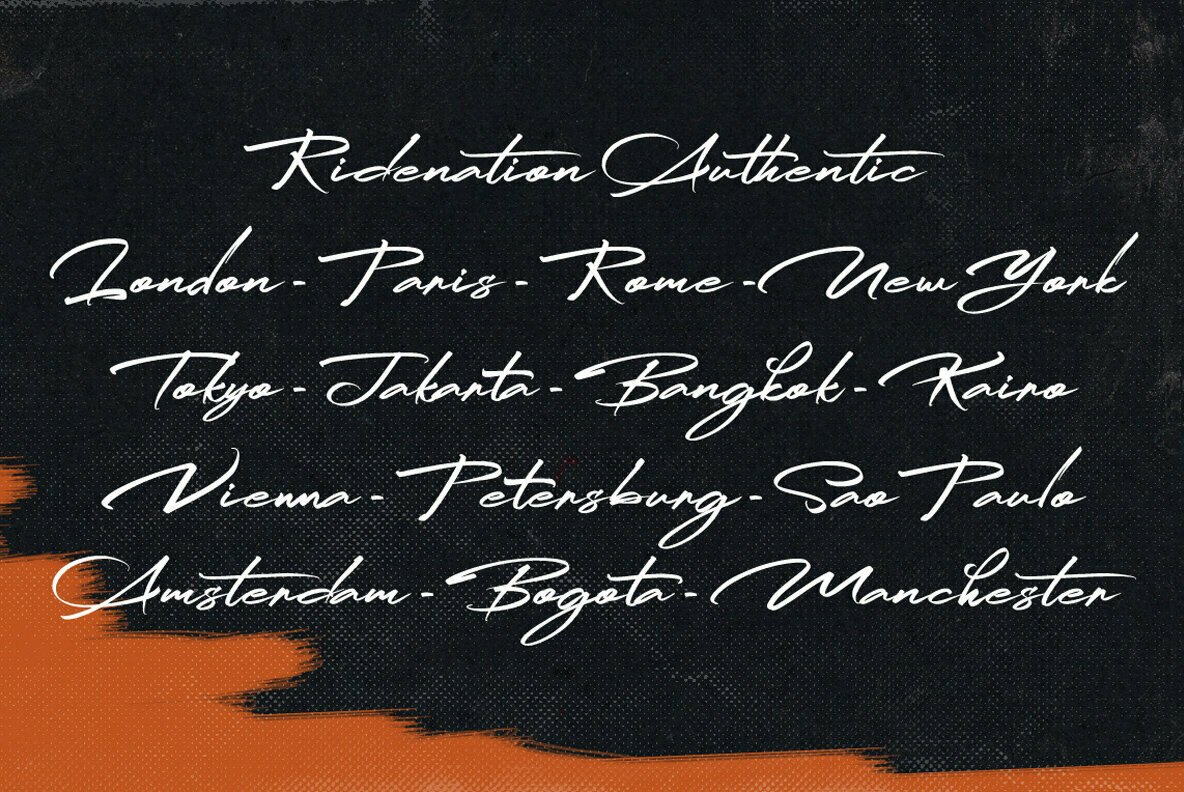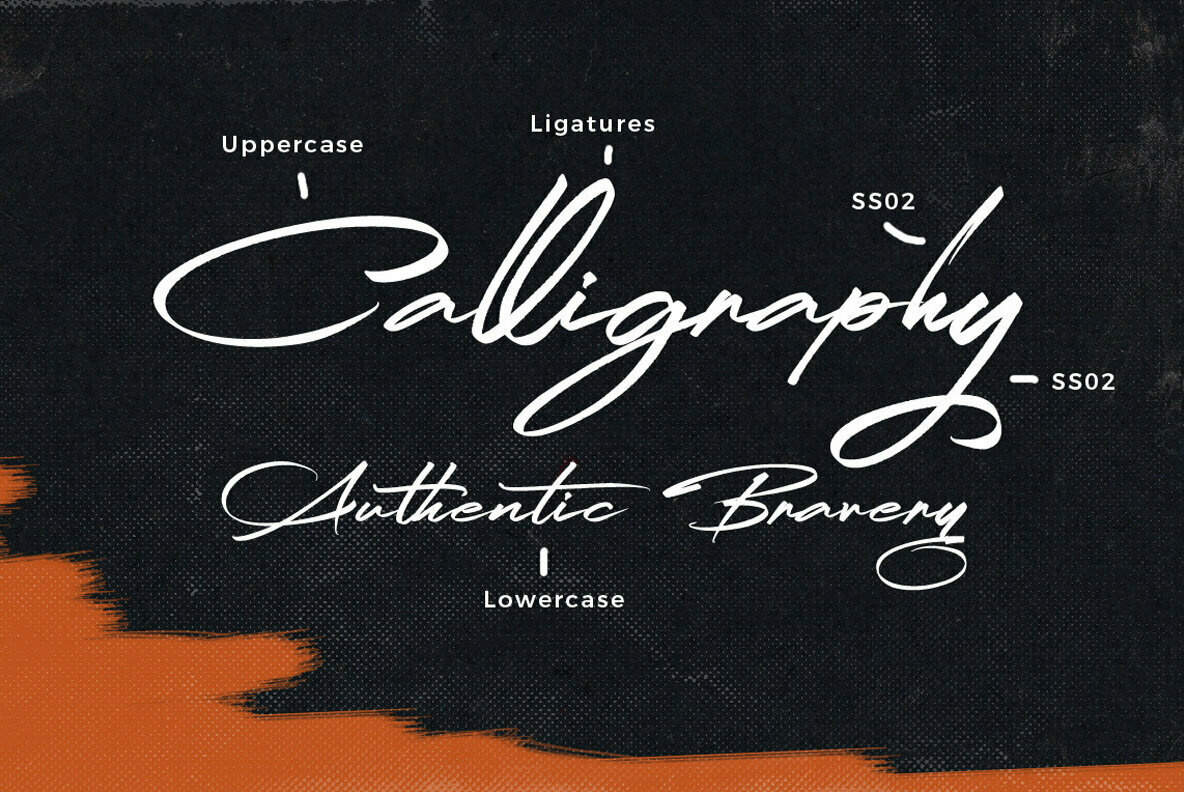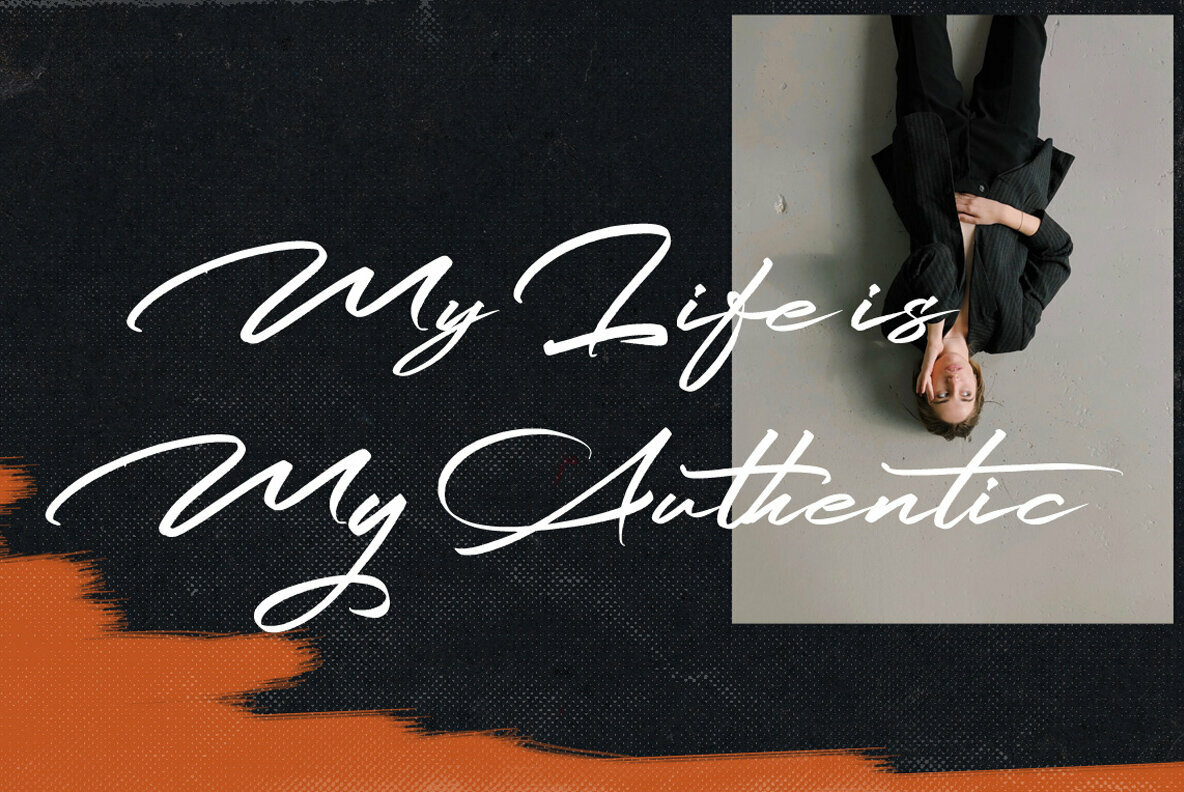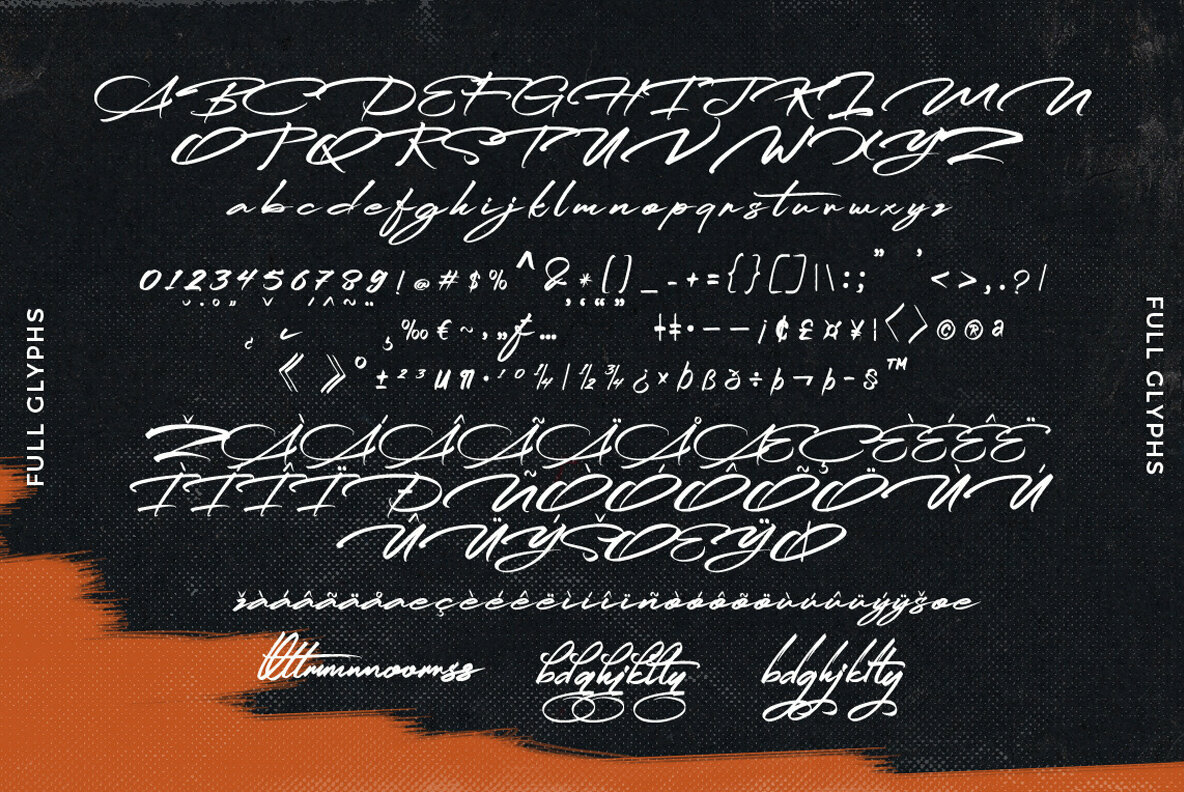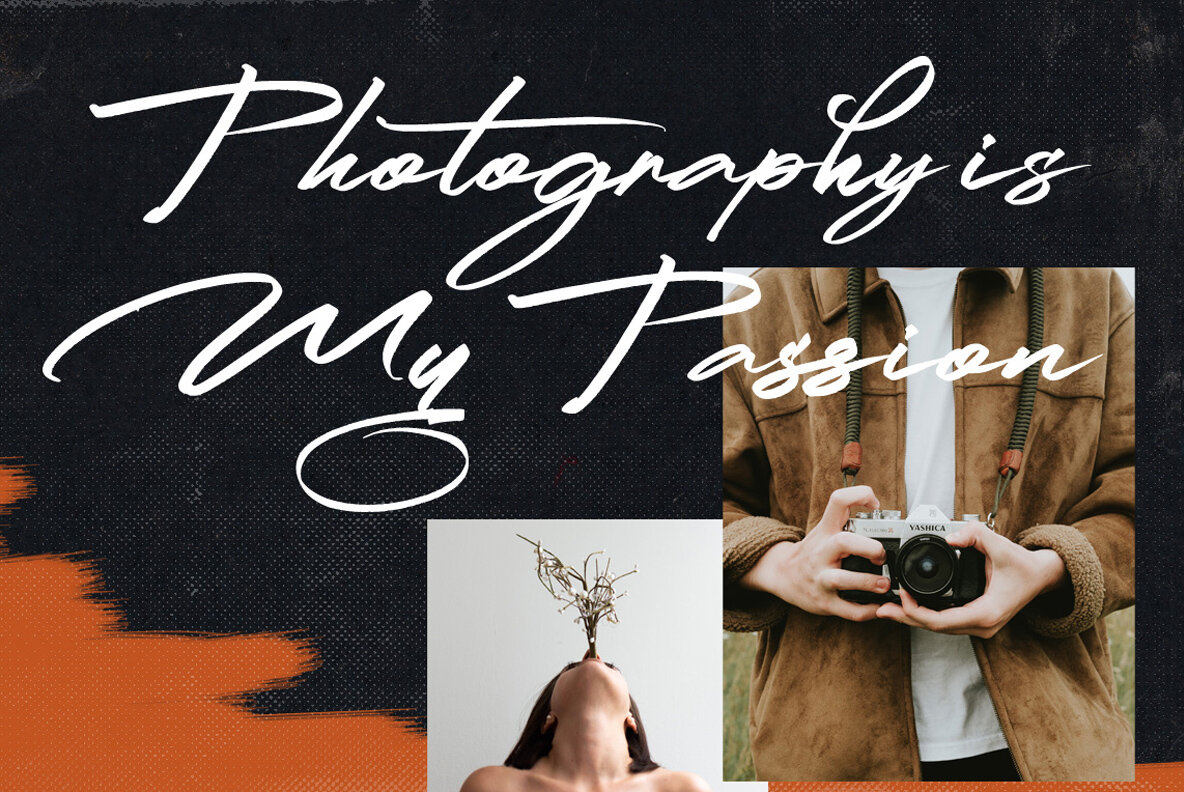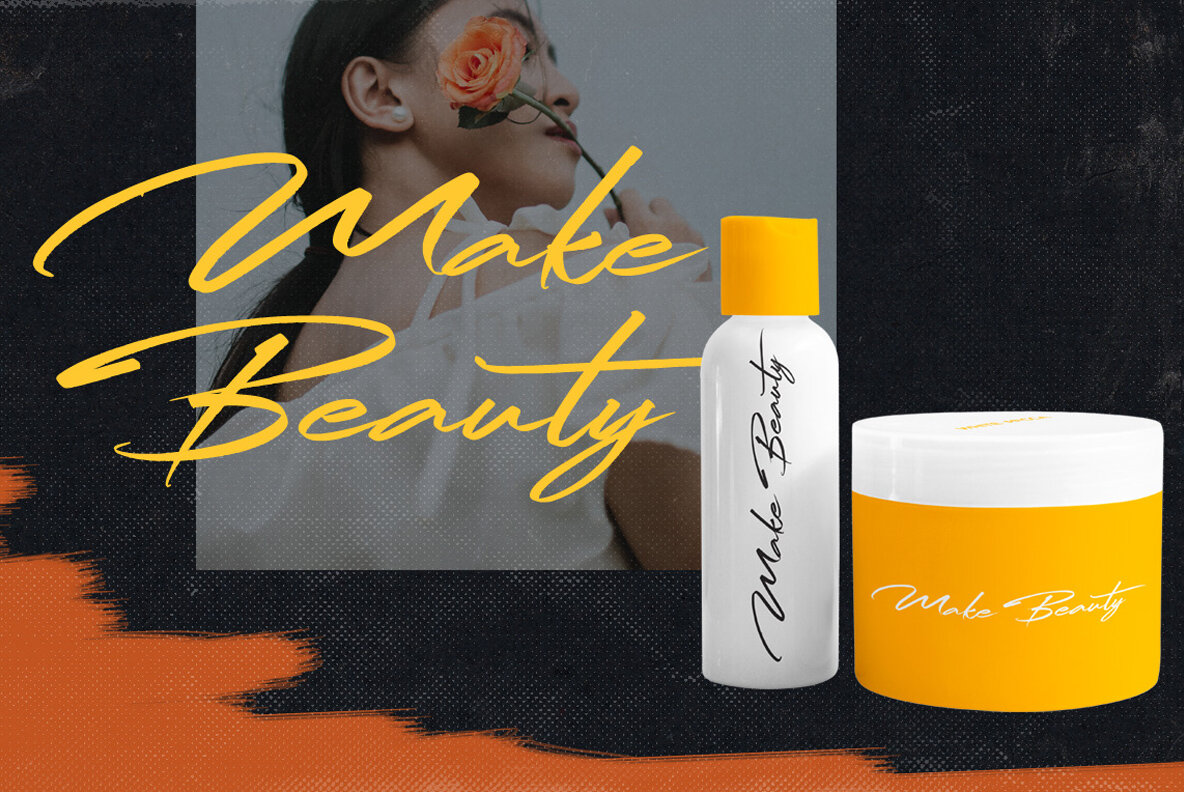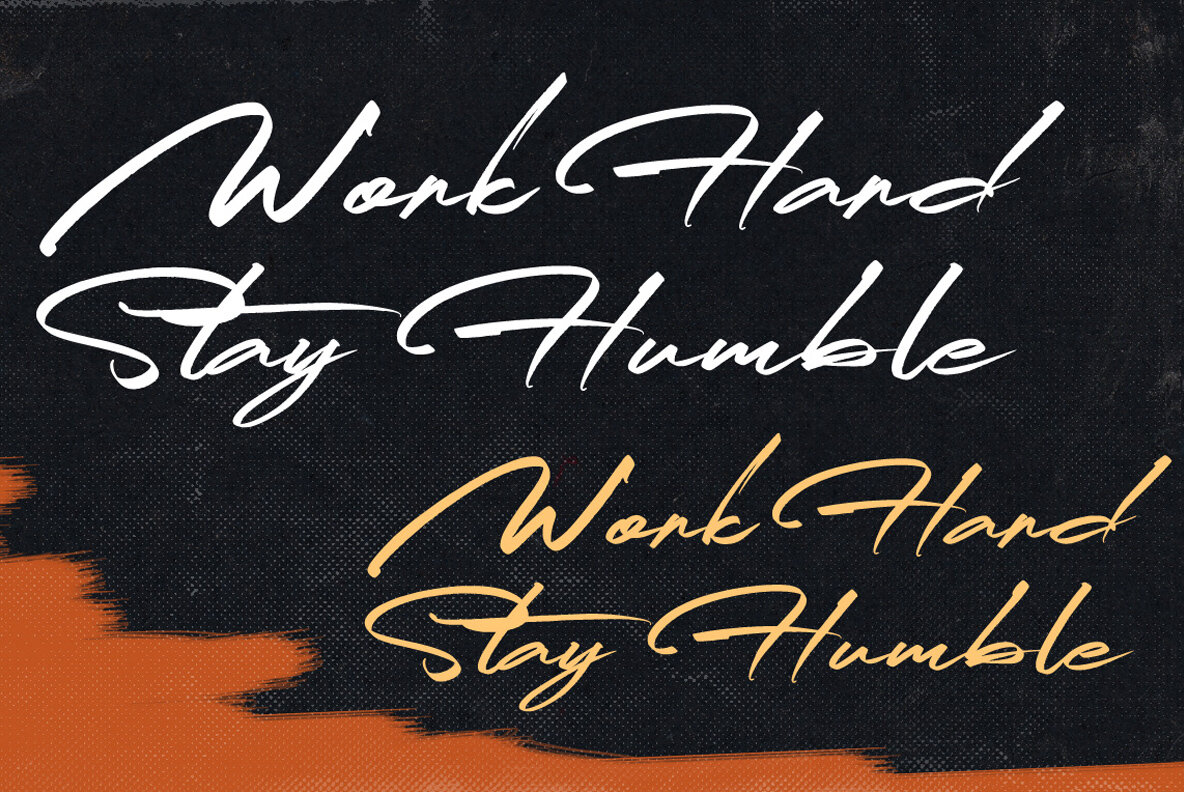
Ridenation Font
Ridenation
Ridenation is a script font embodying the art of handlettering using a brush style. This font possesses an intrinsic charm suited for an array of design projects, effortlessly adding a personal touch to wedding invitations, logos, t-shirts, badges, stickers, and more.Ridenation: Script Font with Handlettering Flair
Features of Ridenation